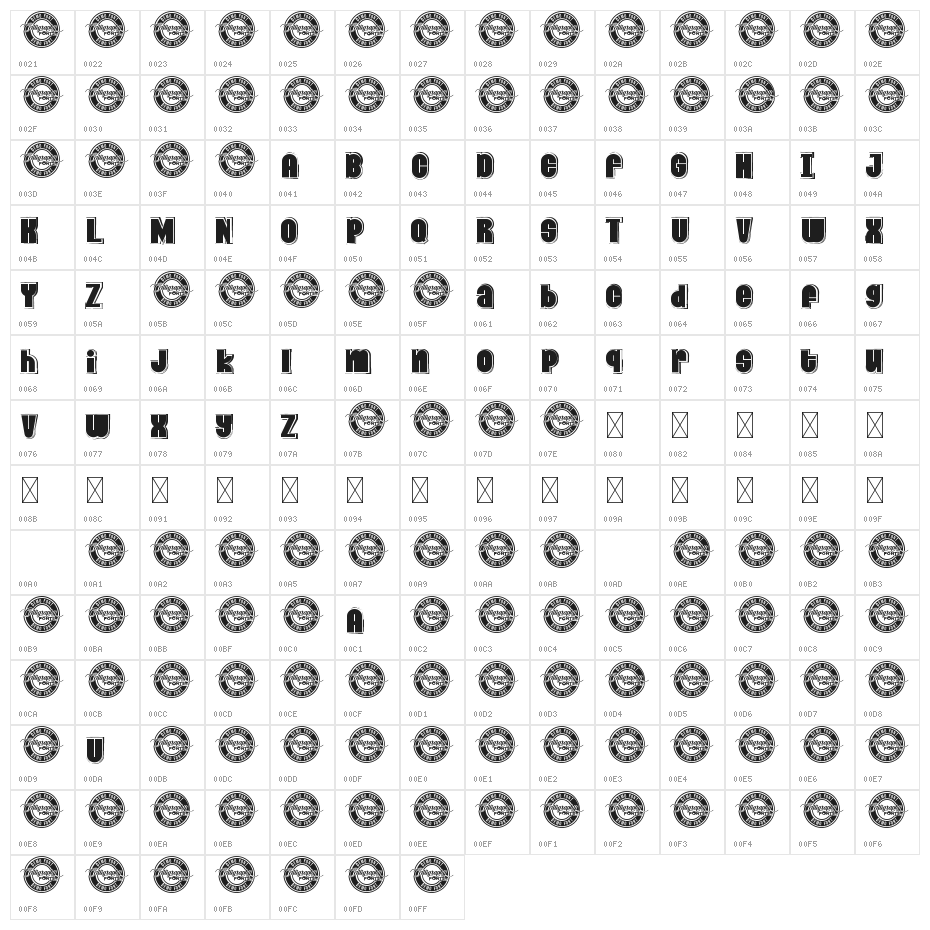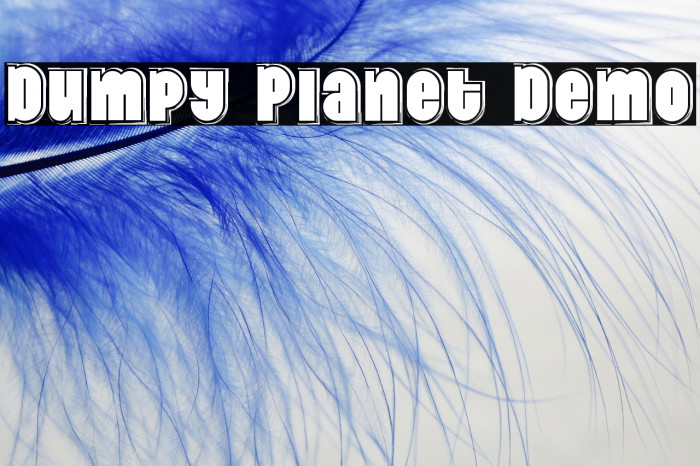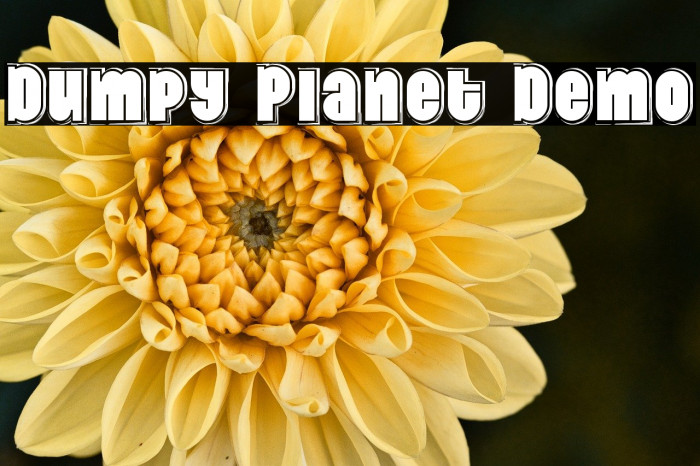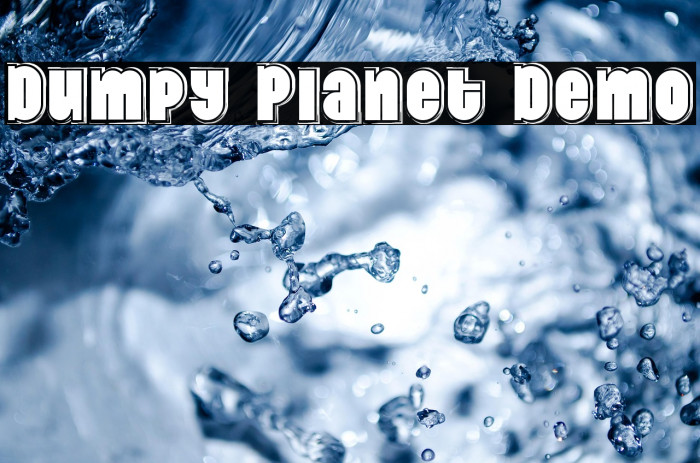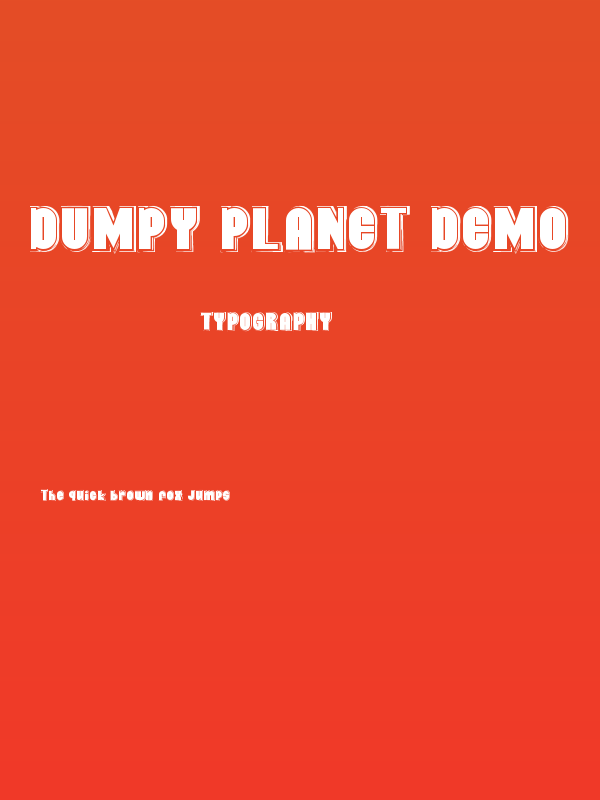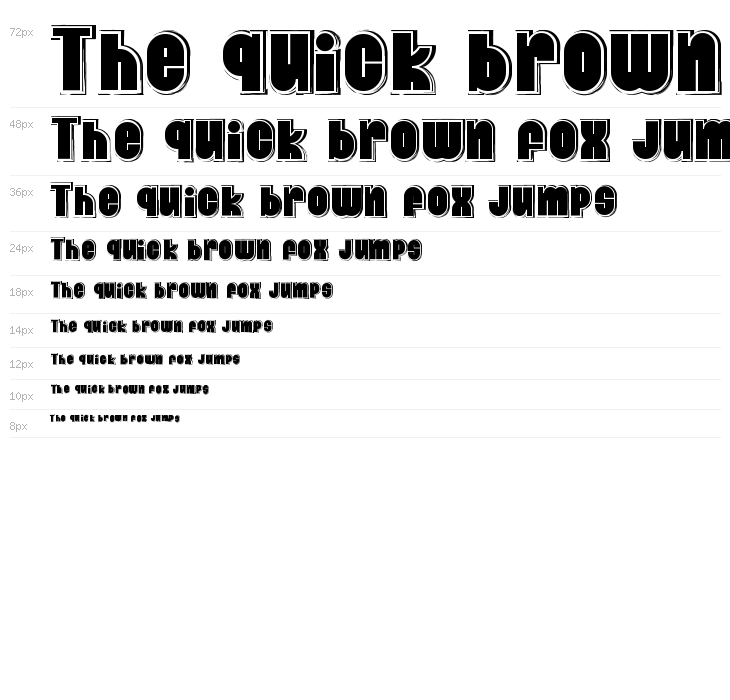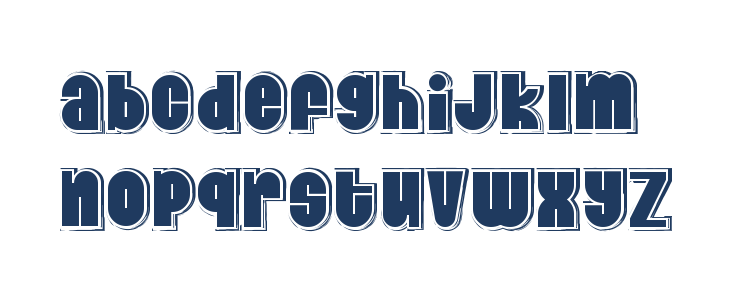
Dumpy Planet Demo Font
This font features a bold and playful style with a strong presence. Each character is outlined with a thick border, adding a sense of depth and dimension. The letters are uniformly wide, giving them a blocky and robust appearance. The uppercase and lowercase letters maintain a consistent style, with rounded edges and a slightly condensed form. The font's unique design makes it stand out, offering a modern twist on traditional block lettering. It is well-suited for projects that require a bold statement or a fun, engaging look.